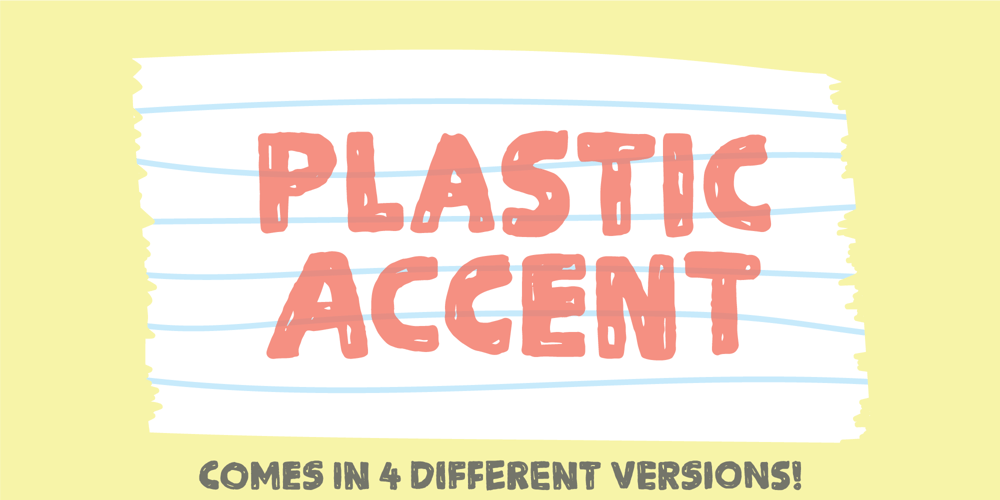
Plastic Accent Font Family was designed by Jakob Fischer and published by PizzaDude.dk. Plastic Accent contains 4 styles and family package options. A handmade scribbled font with loads of organic attitude. So much I even decided to do a Sharp and Soft version of the fonts!